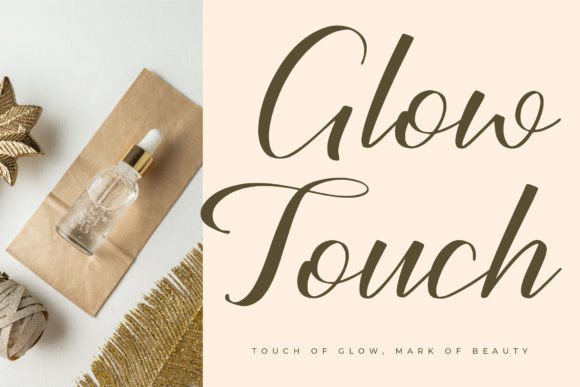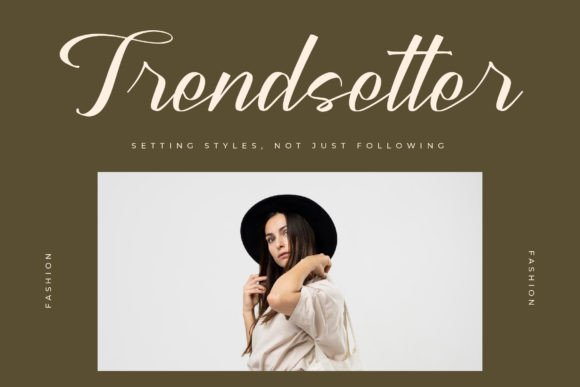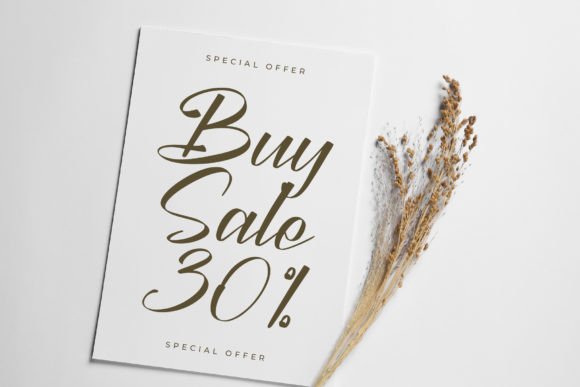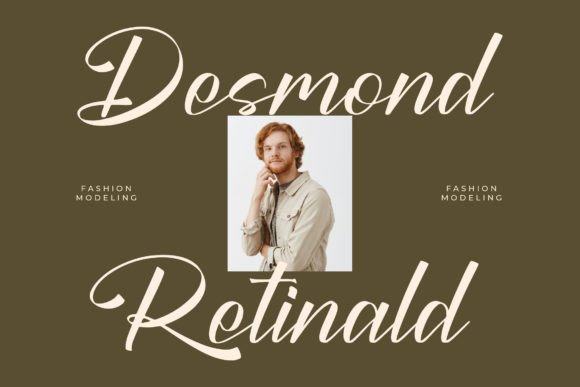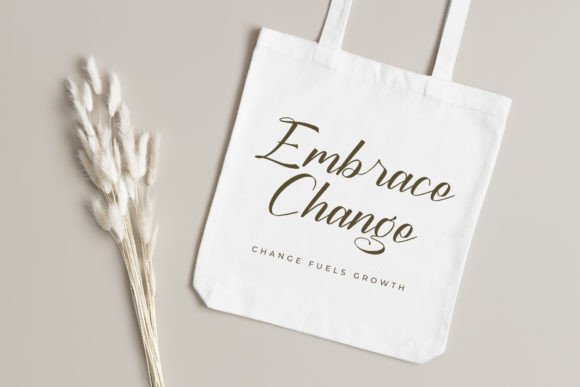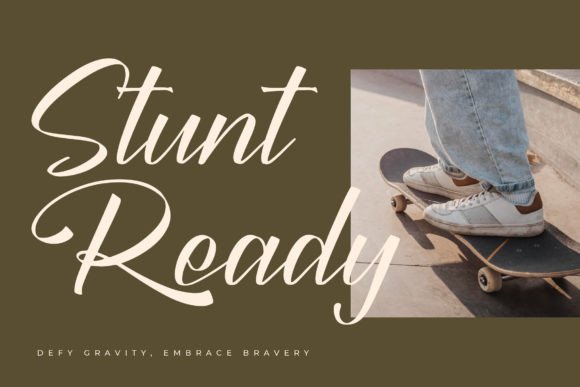
Introduction to Michael Bugtina Font
As a designer, there’s nothing quite like the rush of inspiration that comes from discovering a new font. Imagine strolling through a charming boutique, surrounded by elegant homeware and exquisite stationery. The words “Michael Bugtina Font” catch your eye, and you can’t help but feel drawn in by its luxurious, modern script.
Michael Bugtina Font is more than just a design resource – it’s a key to unlocking the perfect look for your next creative project. Whether you’re working on a high-end branding project or a beautiful wedding invitation, this font is sure to elevate your design to the next level. With its transparent background and high-quality design, it’s the perfect addition to any project that needs a touch of luxury.
Key Features of Michael Bugtina Font
- Features a unique, modern design with a transparent background, making it ideal for backgrounds and overlays.
- Supports a wide range of languages, including Latin, Cyrillic, and Greek scripts.
- Designed by a professional type designer, Michael Bugtina, to provide a distinctive and creative look for your projects.
Honest Review: Michael Bugtina Font
I recently came across the Michael Bugtina Font and I have to say, I’m impressed. The font is free to download, which is always a bonus for designers working on tight budgets. The high quality of the font is evident, with clean lines and a professional look that’s perfect for a wide range of creative projects.
One of the standout features of the Michael Bugtina Font is its ability to be used with a transparent background. This makes it easy to use in design projects where a solid background color is not necessary.
Here are some of the things that work well about the Michael Bugtina Font:
- Transparency option
- Professional look
- Not suitable for use in logos or branding
- May not be as versatile as some other fonts
- Can be difficult to read in certain font sizes
Overall, I’m really impressed with the Michael Bugtina Font. It’s a great addition to any designer’s toolkit and is perfect for a wide range of creative projects. Just be aware of the limitations and use it wisely.
Tips for Getting the Most Out of Michael Bugtina Font
For the best results, use the font on a transparent background or with a high-quality image. This will allow the font to stand out and add a touch of elegance to your creative project.
Michael Bugtina Font is ideal for various creative projects, including:
- Quote graphics